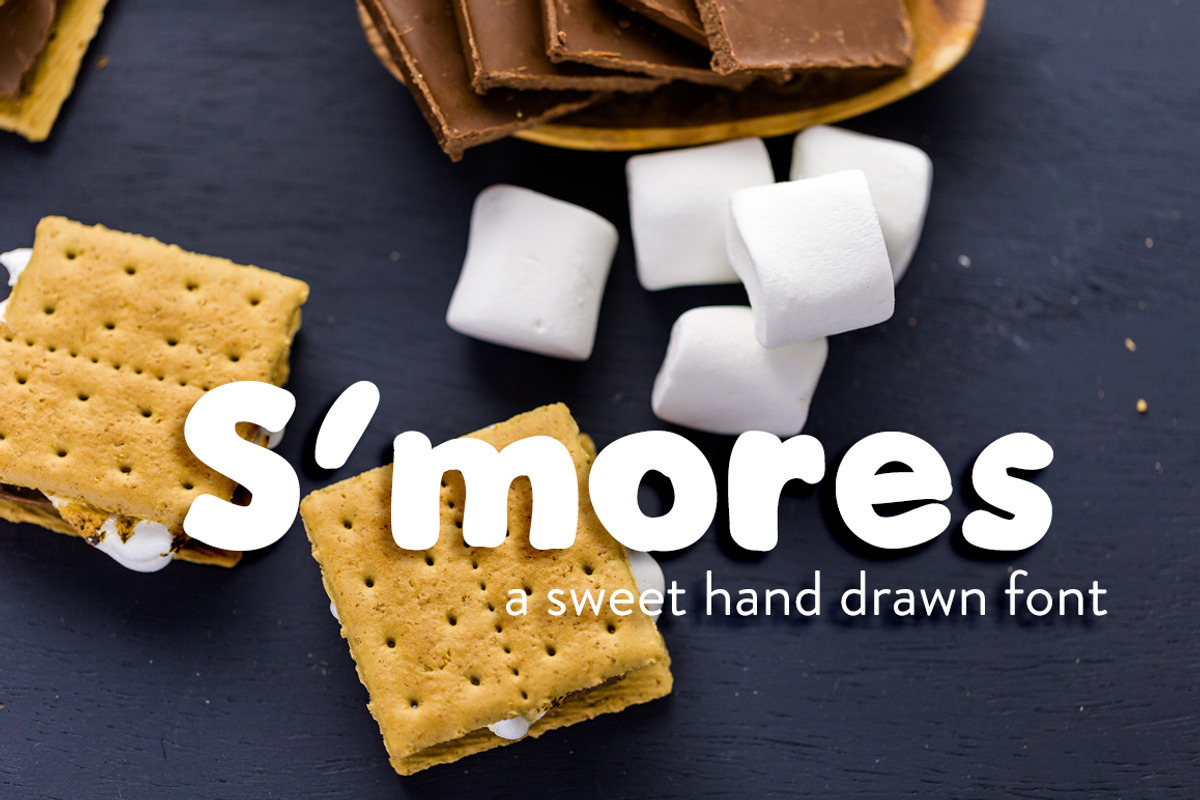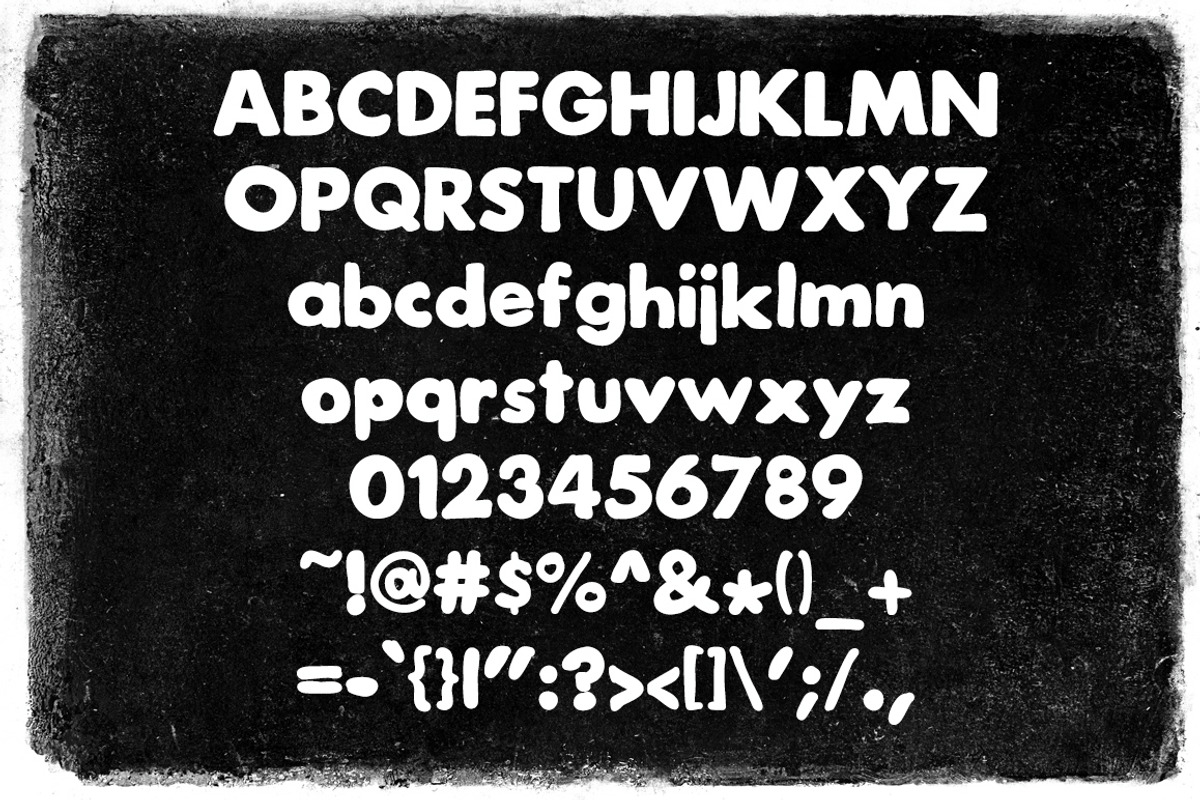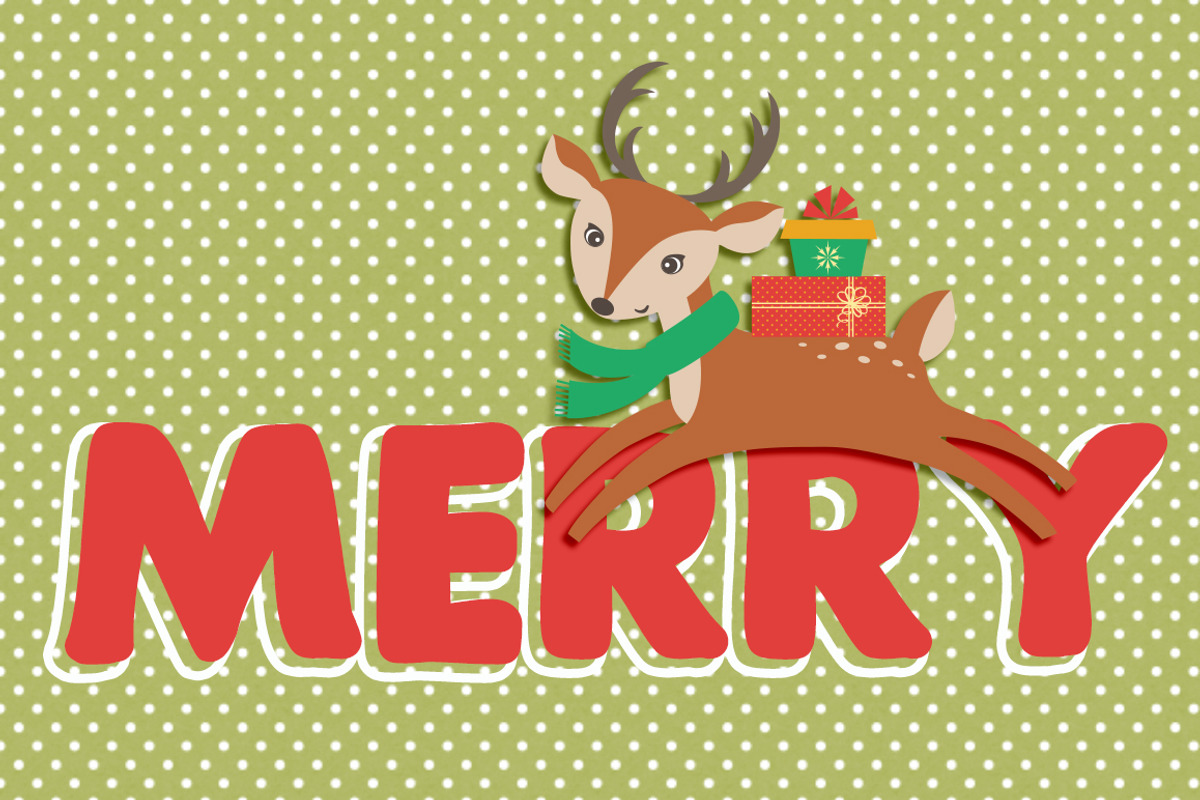
S'mores Hand Drawn Font
- contains uppercase and lowercase letters and punctuation.
S'mores Hand Drawn Font by Polka Dot Pixels fits naturally into Branding, posters, packaging, typography.